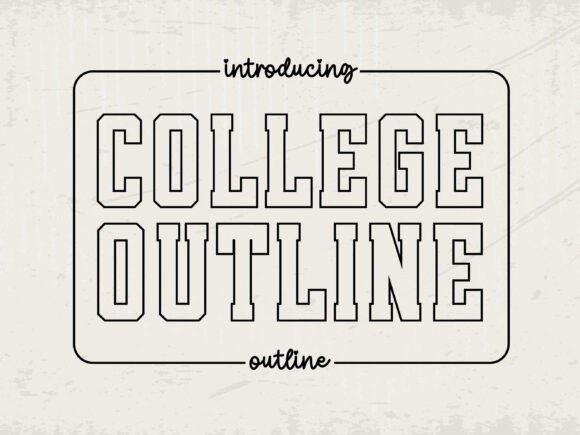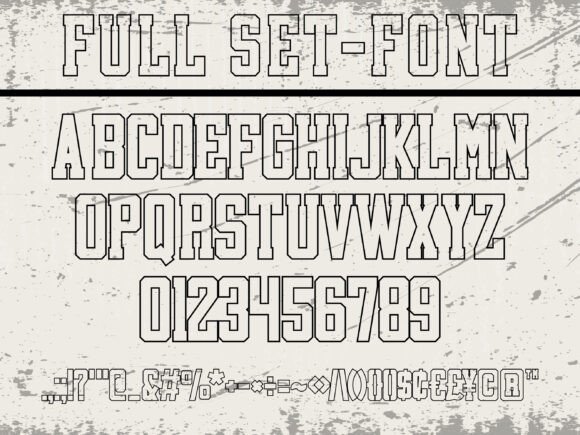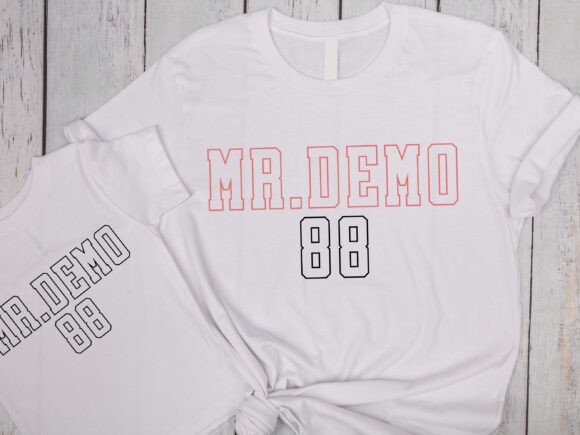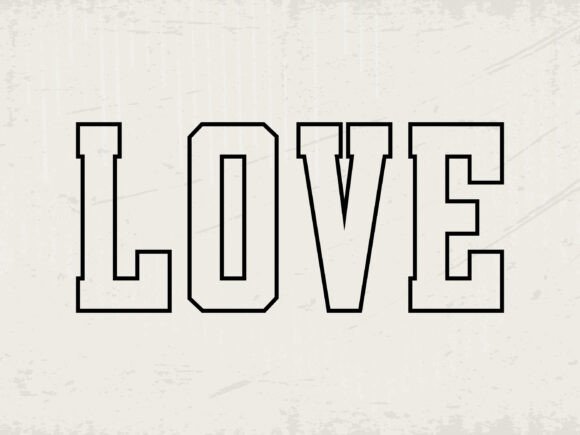
College Outline Font
About the College Outline Font
Add a touch of class to your work with the College Outline Font, a truly exceptional typeface. College Outline is made for any professional project branding, a T-Shirt, logo or more. Perfect for sports-themed design projects or web graphics. Serif font includes a full set of display sporty uppercase and script lowercase letters for duo style, numerals, punctuation and other symbols.
College Outline’s bold, sporty aesthetic makes it ideal for headlines, logos, and short, impactful text on posters or sportswear packaging. Its strong uppercase forms are particularly effective for branding applications needing a powerful visual presence. However, the script lowercase, while stylish, limits its use for extended body text or UI elements where readability is paramount. Avoid using it for long paragraphs or small sizes.
This font pairs well with clean sans-serif fonts like Open Sans or Montserrat for a balanced contrast. For a more playful feel, consider pairing it with a rounded geometric sans-serif. Alternatively, a classic serif like Garamond could add a touch of sophistication, complementing the font’s athletic energy.
The overall personality is energetic and confident, making it a strong choice for brands projecting strength, dynamism, and a youthful appeal.
College Outline Font Usage Examples
College Outline Font Example